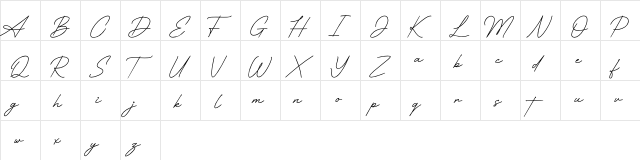
QueenMother Regular
| Designer | Jefri Dwi Alfatah |
Design Context for QueenMother Typeface
QueenMother is a composed and adaptable typeface that performs quietly and consistently across a wide range of design contexts.